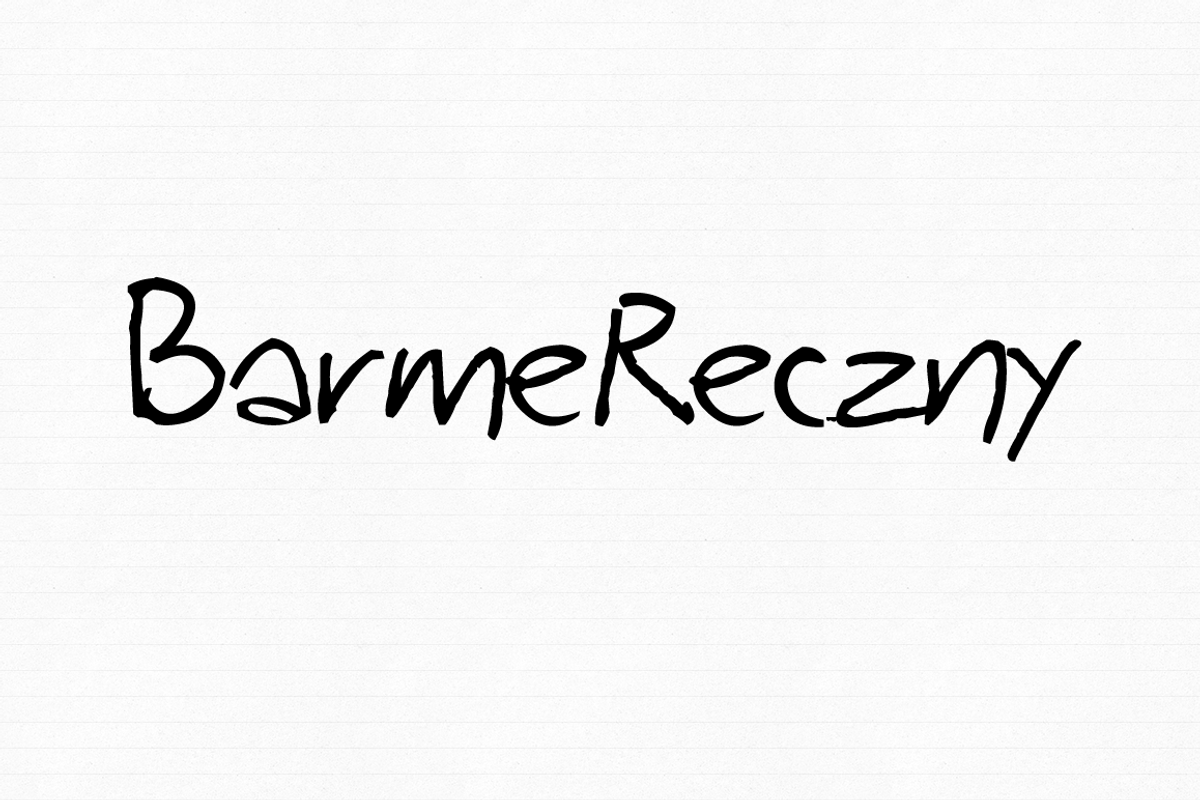
Please note, to use this font for commercial purposes, you must purchase the full version. Barme Reczny is a beautiful and elegant handwritten font that brings a personal, organic touch to your designs. With its smooth curves and sophisticated letterforms, this font is perfect for logos, invitations, branding, and creative projects. Whether you're designing a stylish logo, a wedding invitation, or a chic brand identity, Barme Reczny adds a refined, artistic flair to your work. Test it out and enjoy free download access for personal use. Experience the charm and elegance of Barme Reczny Font Free Download before purchasing the commercial license. Add a refined, handwritten style to your designs with Barme Reczny.